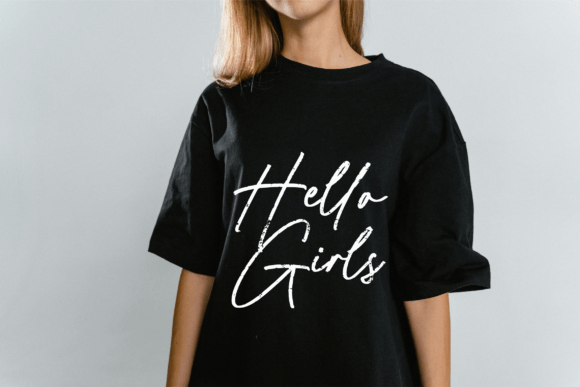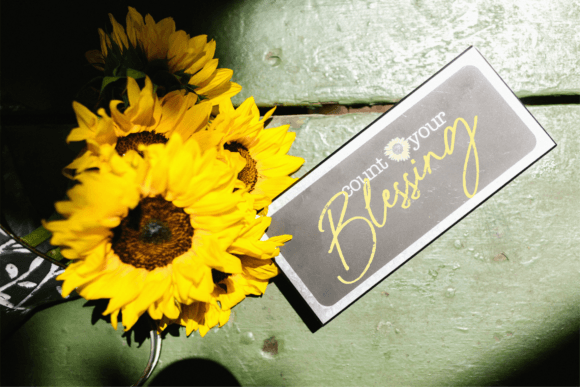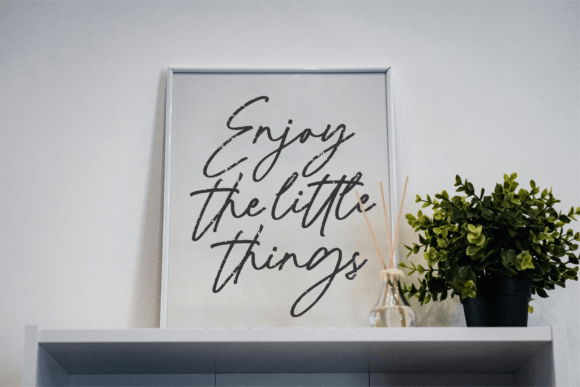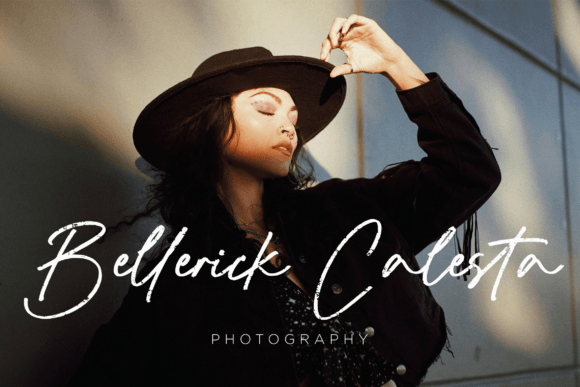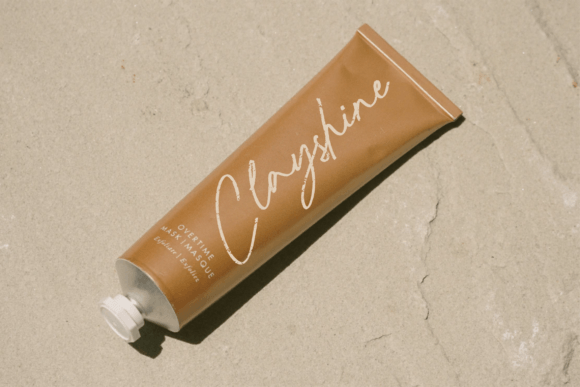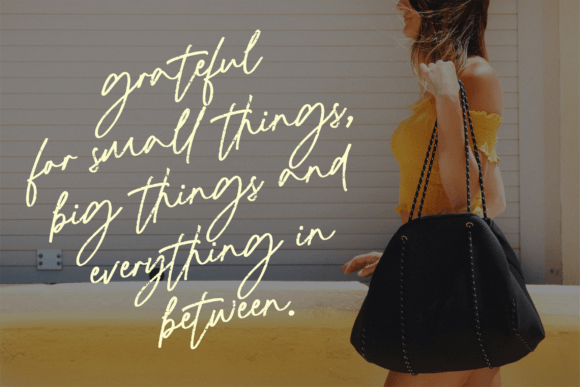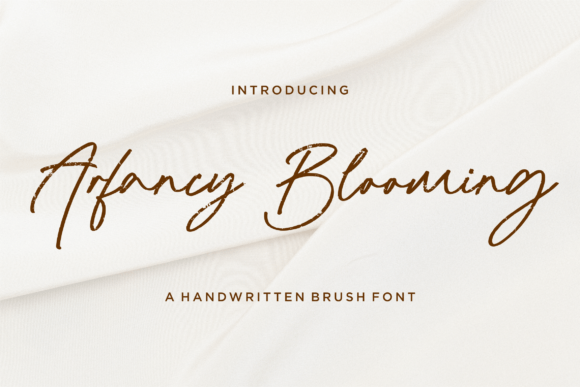
Introducing Arfancy Blooming Font: Elevate Your Designs with Elegance and Charm
In the world of typography, a well-crafted font can make all the difference in transforming a design from ordinary to extraordinary. For designers and crafters seeking to infuse their projects with a touch of sophistication and whimsy, Arfancy Blooming Font emerges as an exceptional choice. This stylish handwritten script font is designed to exude elegance and charm, making it perfect for a variety of creative applications.
The Essence of Arfancy Blooming Font
Arfancy Blooming Font is characterized by its flowing, graceful curves that dance across the page, bringing a sense of movement and fluidity to any design. Its delicate strokes are meticulously crafted to convey warmth and creativity, making it an ideal selection for projects that demand a personal and sophisticated touch.
Ideal Applications for Arfancy Blooming Font
The versatility of Arfancy Blooming Font makes it suitable for a wide range of design applications. Some of the most popular uses include:
- Invitations: Whether you’re planning a wedding, birthday party, or baby shower, Arfancy Blooming Font adds a touch of elegance and whimsy to your invitations, setting the tone for a memorable event.
- Logos and Branding: For businesses looking to establish a unique and recognizable brand identity, this font offers a distinctive and stylish solution. Its elegant curves and sophisticated feel make it perfect for branding materials, such as business cards, letterheads, and packaging.
- Stationery and Paper Crafts: Crafters and stationery enthusiasts will love using Arfancy Blooming Font to create custom journals, greeting cards, and other paper crafts. The font’s delicate strokes and flowing curves bring a touch of warmth and personality to any project.
Key Features of Arfancy Blooming Font
What sets Arfancy Blooming Font apart from other script fonts? Here are some of its key features:
- Elegant and Refined: The font’s sophisticated curves and delicate strokes evoke a sense of luxury and refinement, making it perfect for high-end designs.
- Handwritten Charm: Arfancy Blooming Font retains the personal touch of handwritten script, adding a sense of warmth and authenticity to your designs.
- Versatile: Whether you’re designing for digital or print, this font adapts seamlessly to various mediums and applications.
Tips for Using Arfancy Blooming Font Effectively
To get the most out of Arfancy Blooming Font, consider the following tips:
- Pair with Complementary Fonts: Combine Arfancy Blooming Font with simpler fonts to create visual interest and hierarchy in your designs.
- Experiment with Colors: The font’s elegant curves look stunning in a range of colors, from soft pastels to rich jewel tones. Don’t be afraid to experiment and find the perfect hue for your project.
- Pay Attention to Spacing: To maintain the font’s elegant flow, ensure adequate spacing between words and lines.
| Font Name | Arfancy Blooming Font |
| Author | qwrtypefoundry |
Arfancy Blooming Font is a beautiful and versatile script font that can elevate any design with its elegant curves and charming personality. Whether you’re a designer, crafter, or DIY enthusiast, this font is sure to become a favorite in your creative arsenal. With its wide range of applications and easy-to-use features, Arfancy Blooming Font is the perfect choice for anyone looking to add a touch of sophistication and whimsy to their projects.